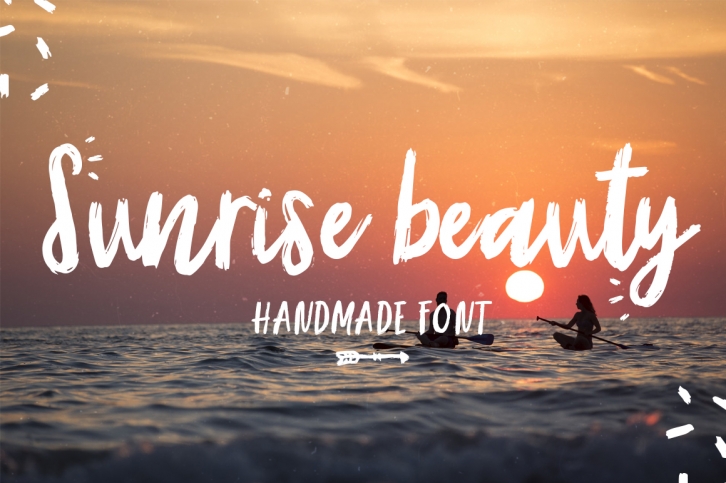
Sunrise is a beautiful, handmade font that is both stylish and incredibly feminine. This cursive textured script is ideal for giving your designs a cool, feminine vibe.